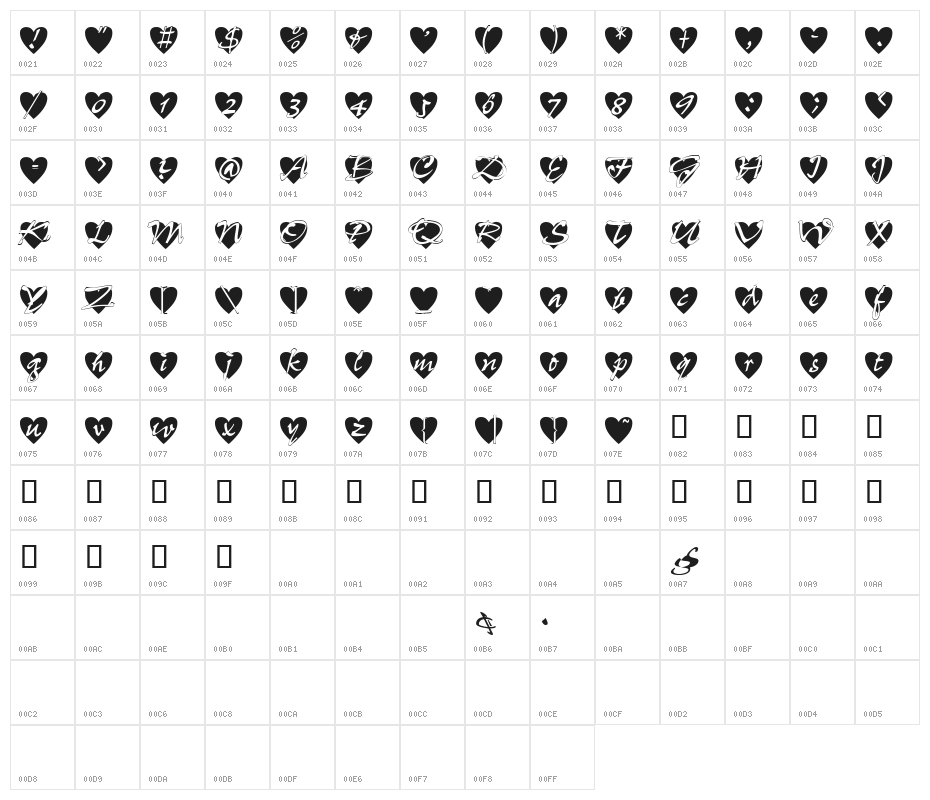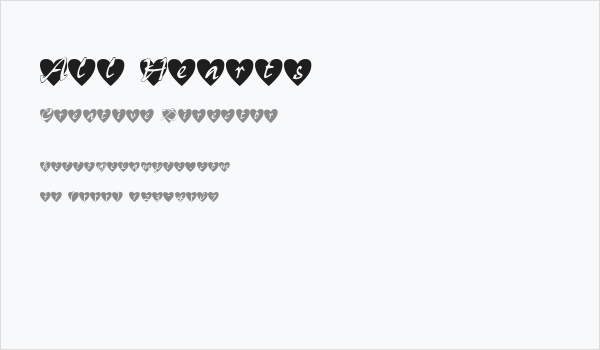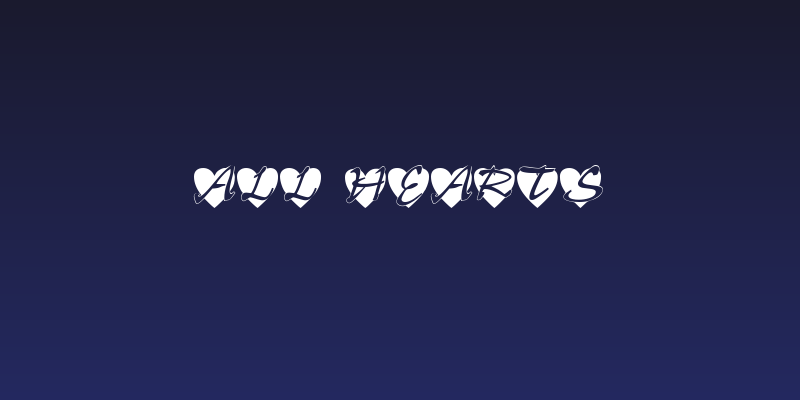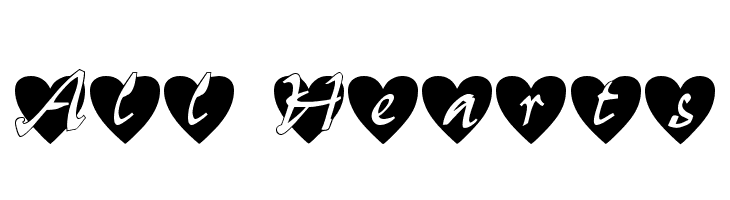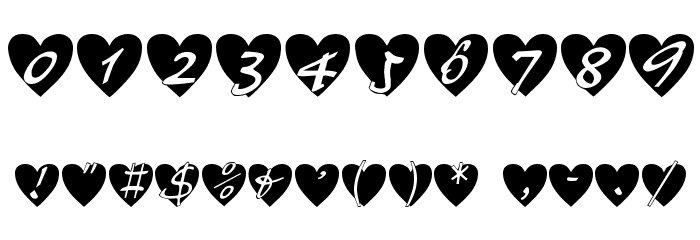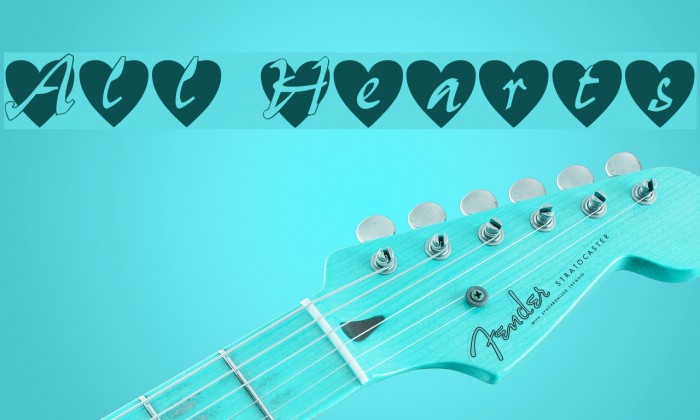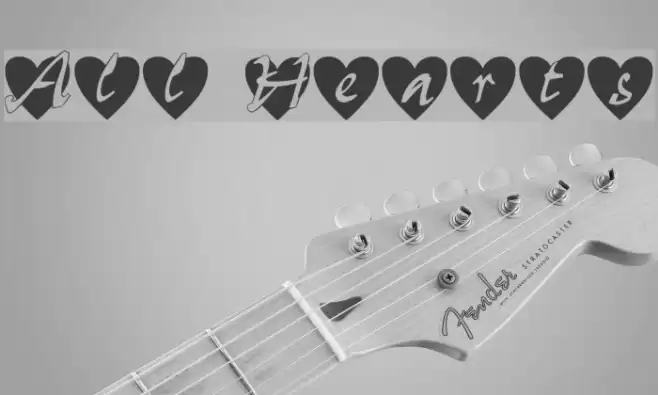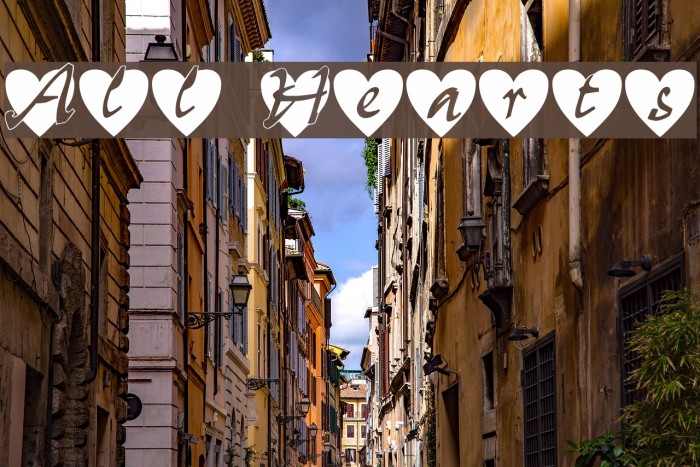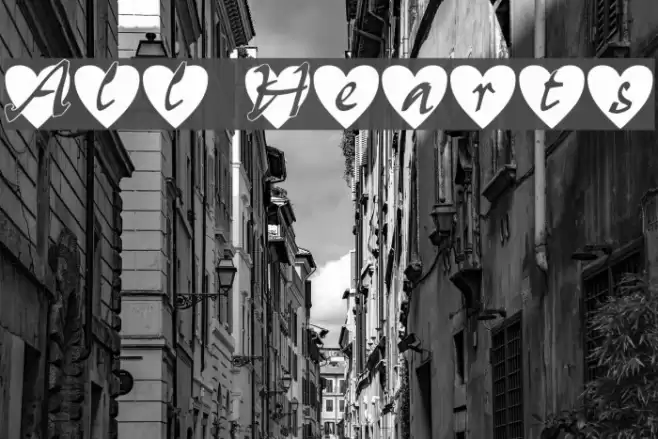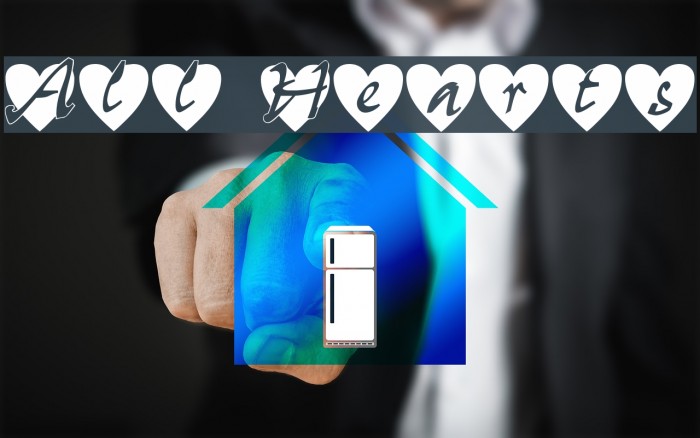
All Hearts Font
✎ Valentine
| Categorii | Valentine |
| Caz de utilizare | Logos, Invitations, Greeting Cards |
| Proiecte propuse | Ideal for wedding invitations, Valentine's Day cards, romantic event posters, and playful branding. |